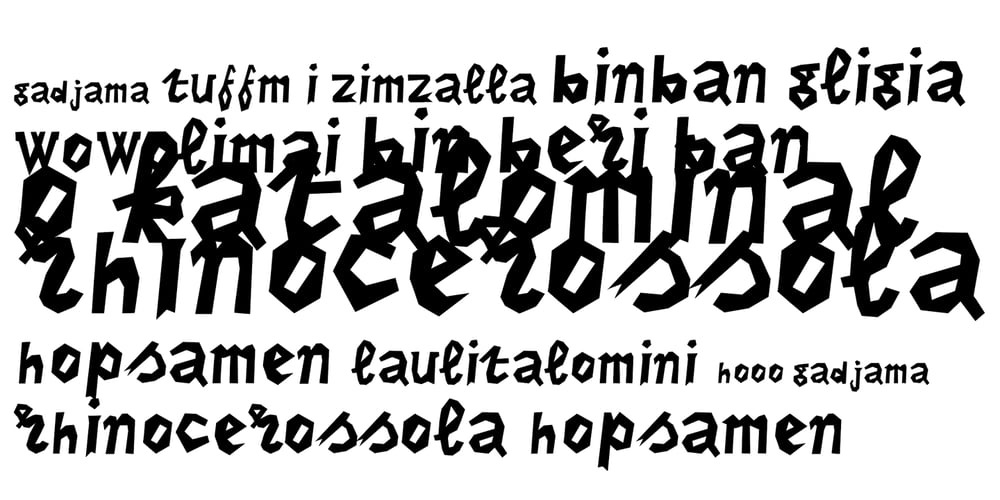
DF Tapa Font Family was designed by Ko Sliggers and published by Dutchfonts. DF Tapa contains 4 styles and family package options. DF Tapa is a typeface based on the vernacular, popular graphics used in Spain. They proudly announce the daily fresh snacks which are homemade and served in every proper bar.